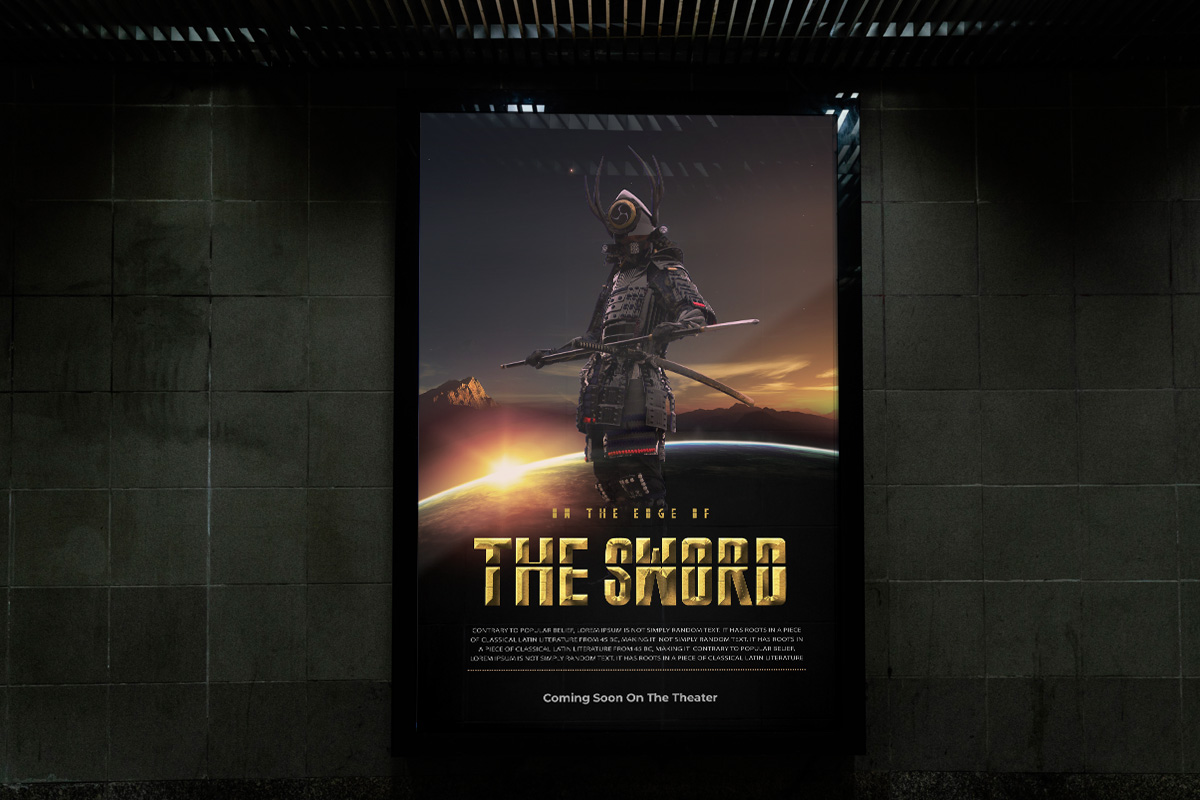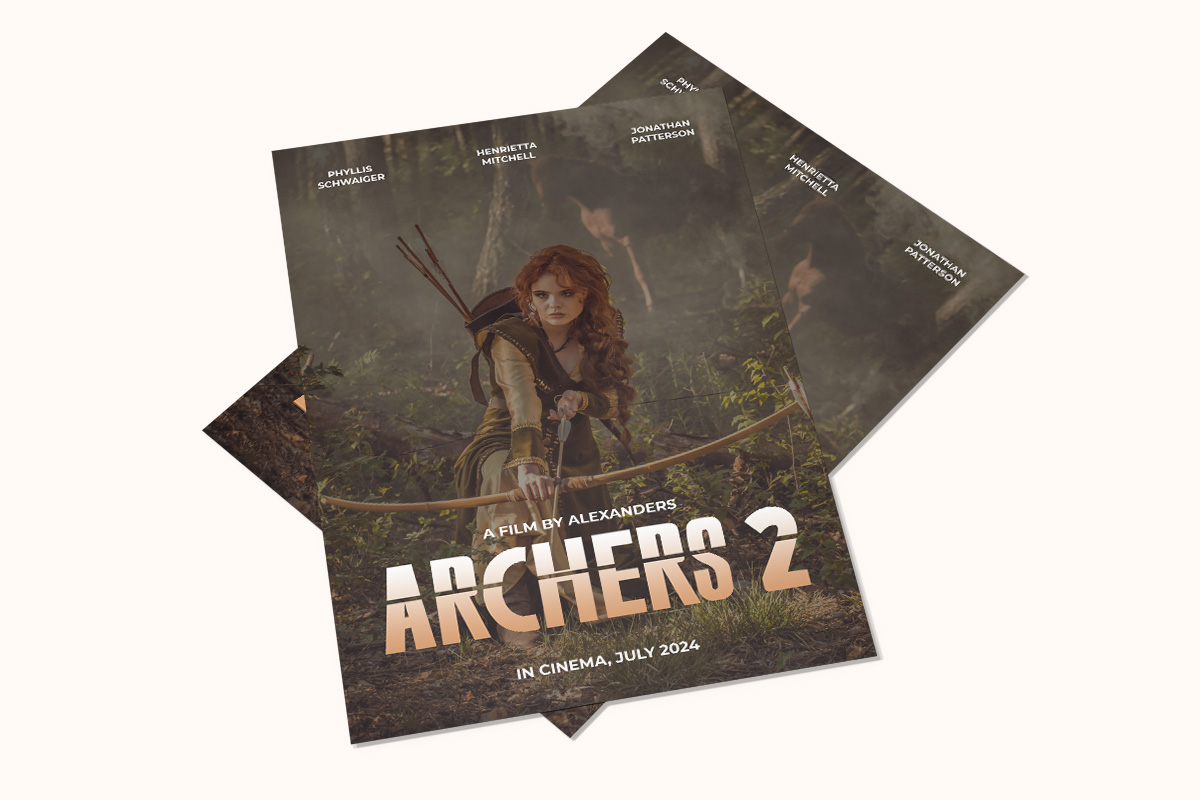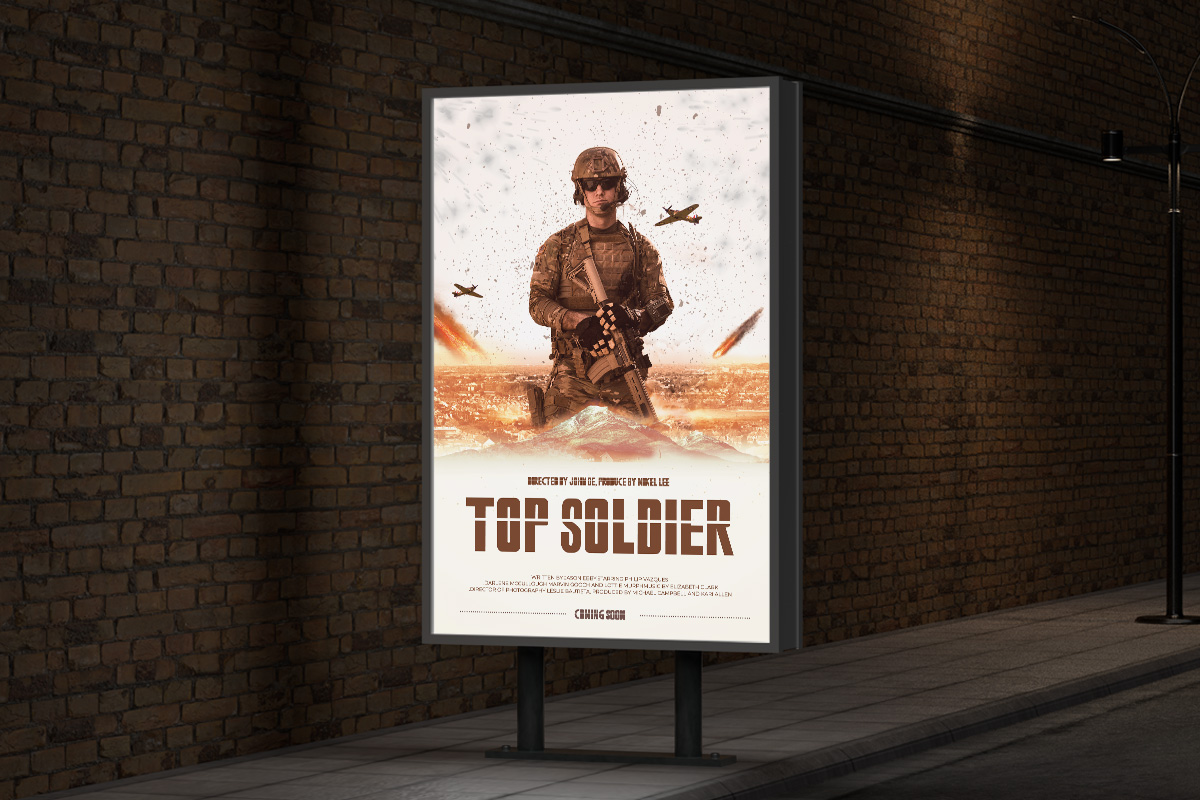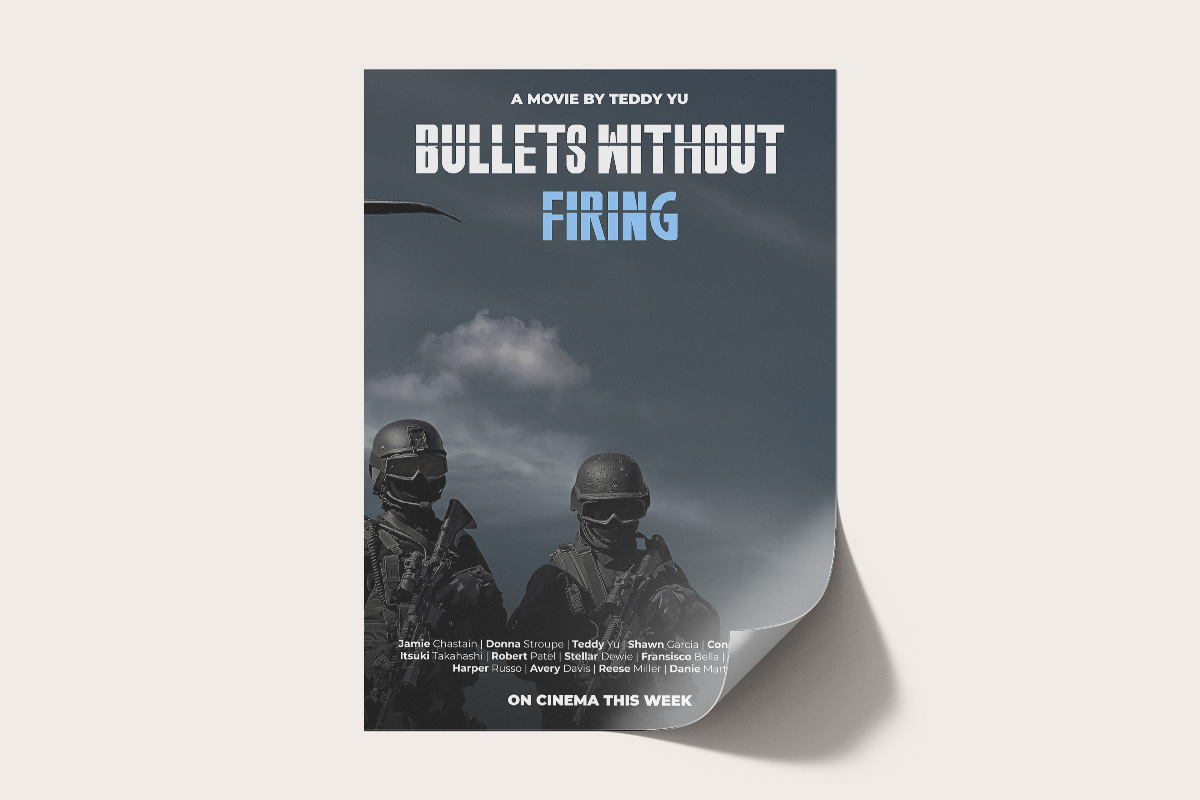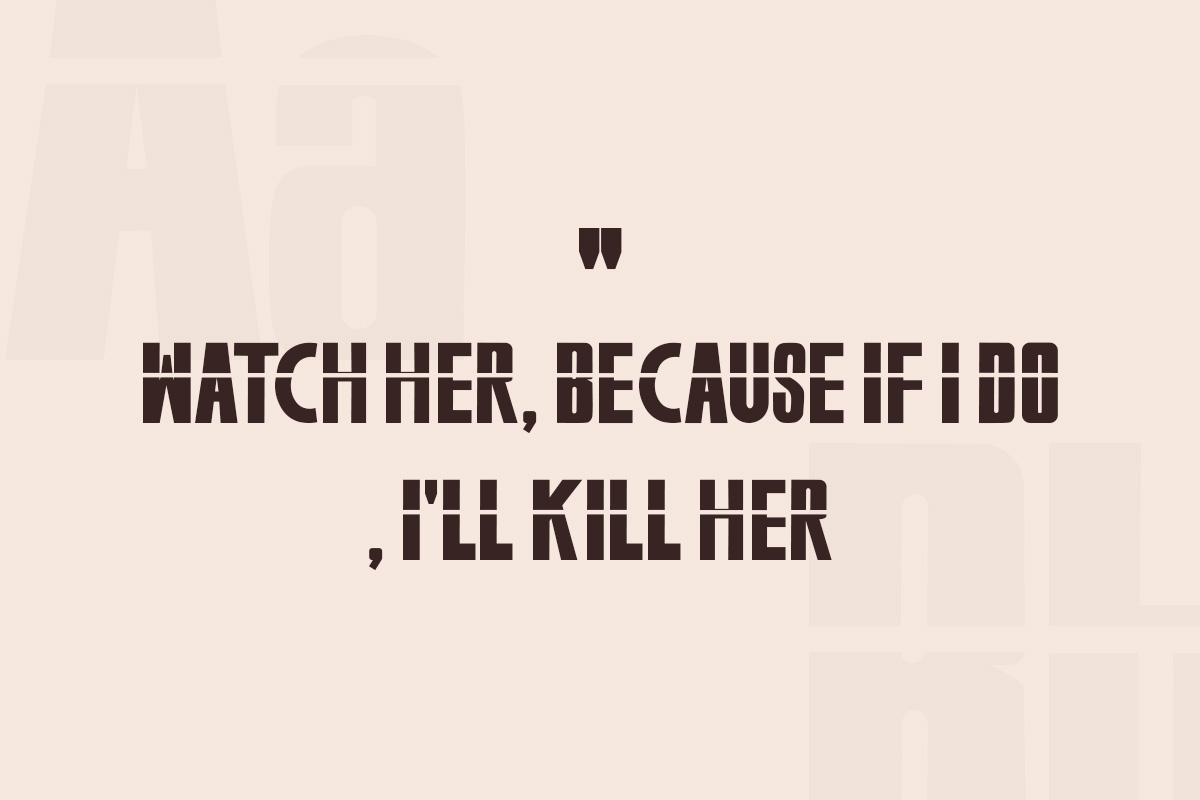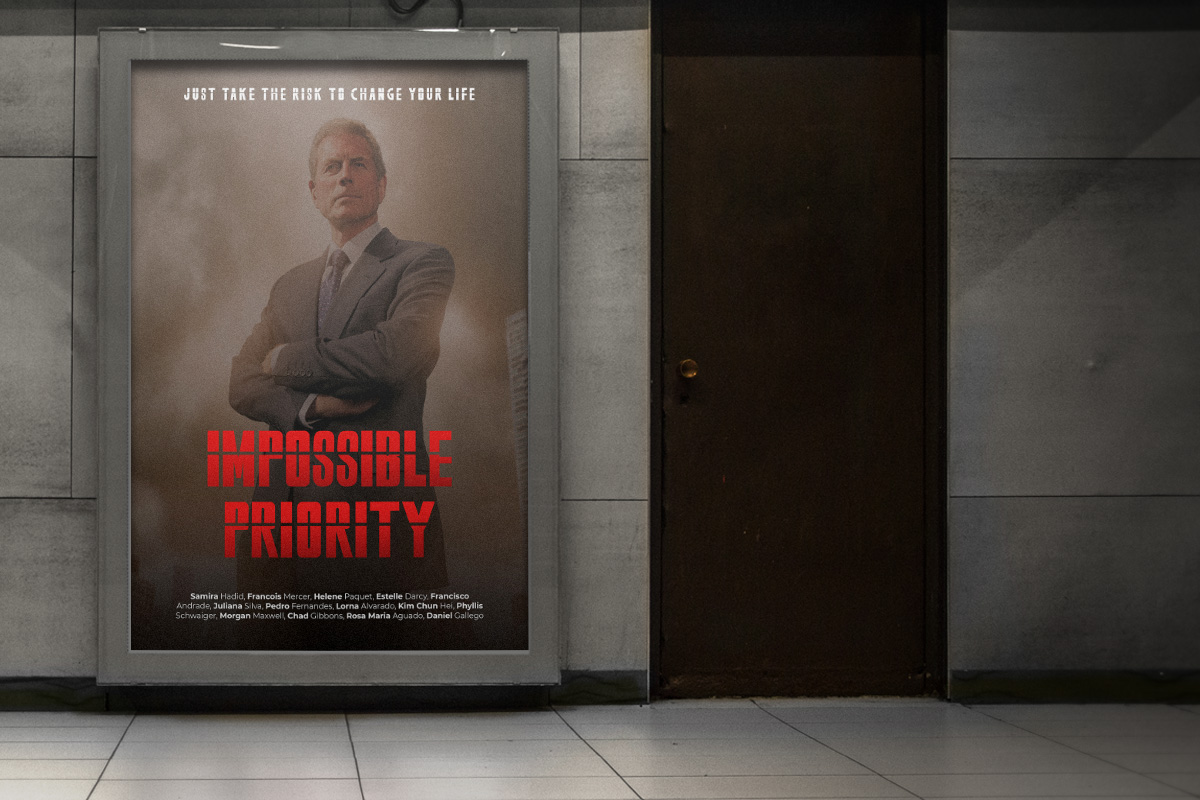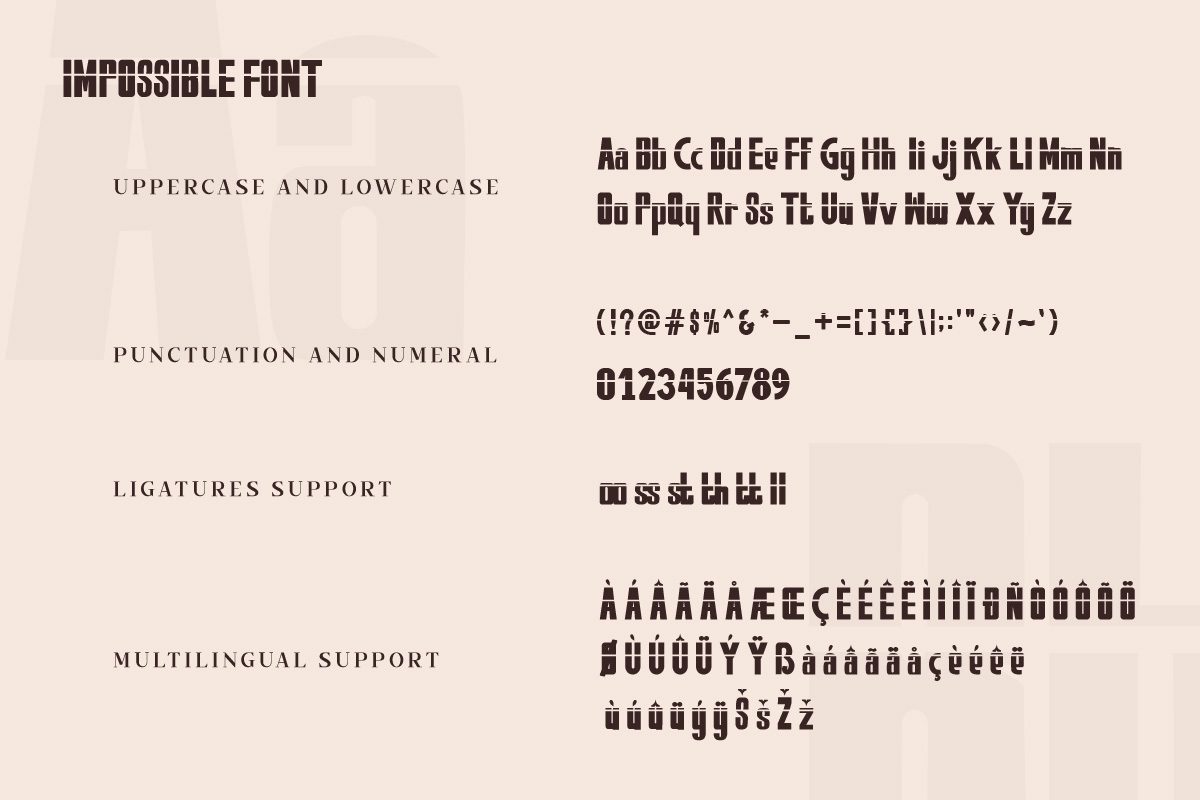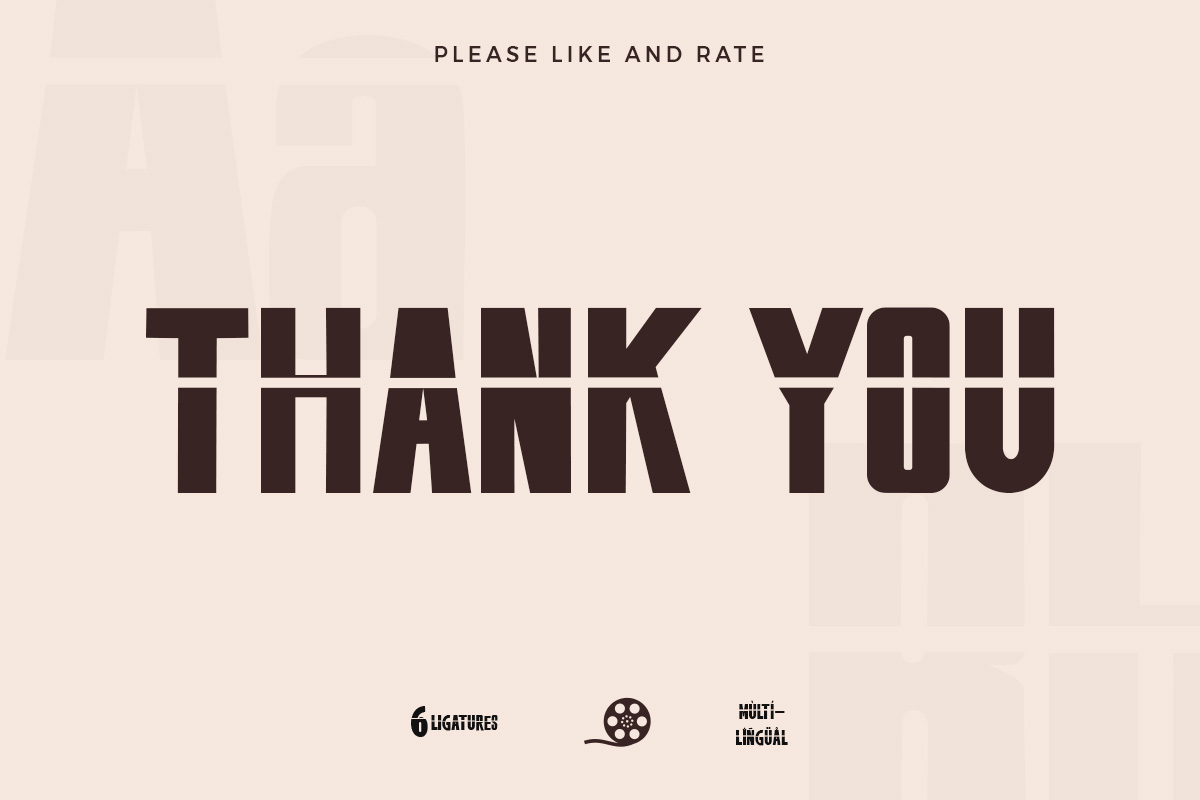
Impossible Decorative Sans Serif Font is a new creation that comes with an elegant and simple style with a thick modern font feel. This font is one of those fonts that give you options for people interested in using a sans serif font. The Dextrous Sans Serif Font has a distinctive feature, without additional letters in it. It is an easy-to-read font that is easy to distinguish individual letters. This font is visible when printed in small or large font sizes. Impossible Decorative Sans Serif Font is the best font for many things. This font can be part of a branding product. Impossible Decorative Sans Serif Font will look simple and elegant when combined with several things like clothing, posters, and banners. Impossible Decorative Sans Serif Font can use for magazine covers and online magazines. Impossible Decorative Sans Serif Font is a subclass of sans serif fonts that are used for greeting cards and screen printing. These types of fonts can be digital fonts and print fonts. The font impression must be complemented by the right theme and colors. Also, it must be use in the right font size. Our Sans Serif font collection is compatible to use as Figma fonts, Canva fonts, Freepik Fonts, and Adobe Fonts. They also work as Windows Fonts and Apple Fonts. For your social media needs, you can use and install fonts in our Sans Serif font collection to use as Instagram Fonts, Facebook Fonts, and Twitter Fonts.